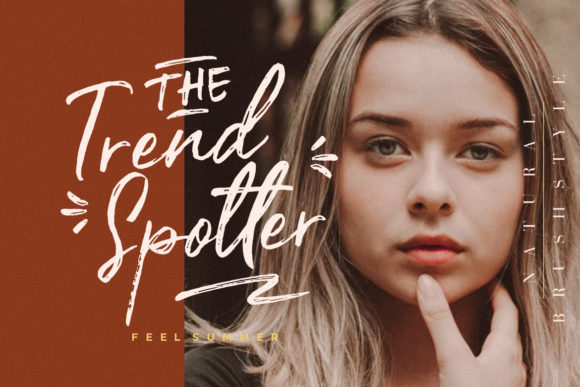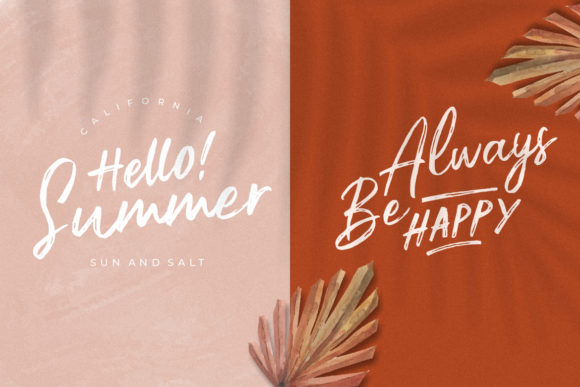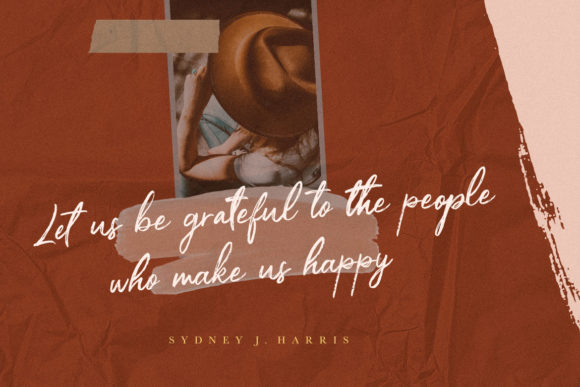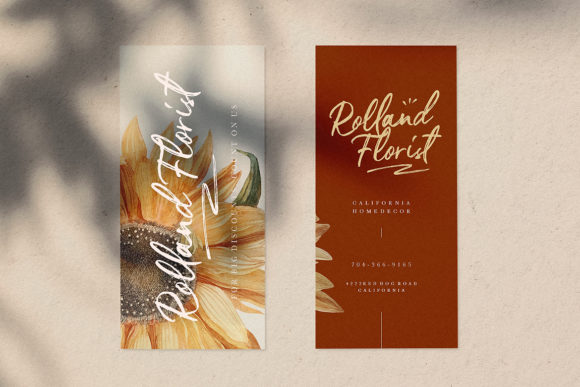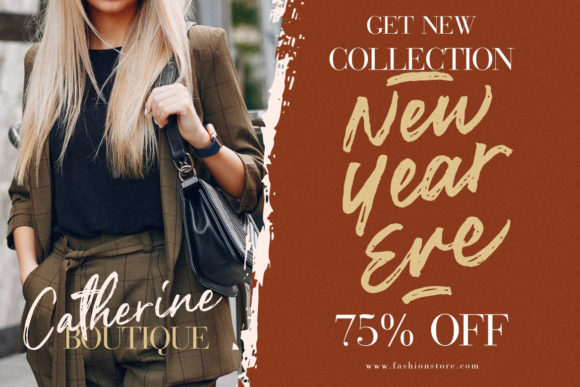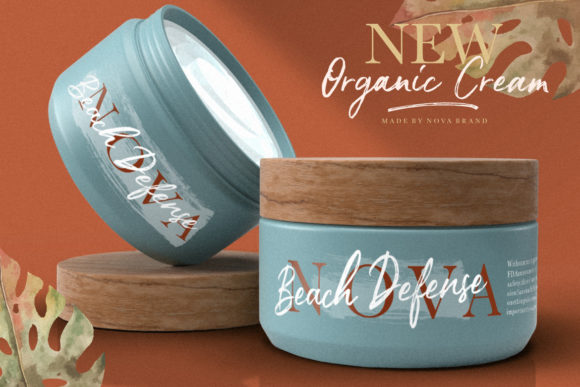
Introduction to Priscilla Font
Remember that moment when you stumbled upon the perfect font to elevate your creative project? For designers, it’s like finding a hidden treasure that sets their ideas apart from the rest. For us, that moment came when we discovered the Priscilla Font, a high-quality script font that’s as versatile as it is beautiful.
Whether you’re crafting a stunning letterhead, designing a title for a special occasion, or creating a set of stationery that reflects your personal style, the Priscilla Font is the perfect design resource to bring your vision to life. Its elegant curves and refined details make it a valuable asset for any creative project, from weddings to business promotions.
With its transparent background and PUA-encoded glyphs, accessing the Priscilla Font’s extensive library of swashes and accents is a breeze. And the best part? It’s available for free download, making it an invaluable addition to your design toolkit.
Key Features of Priscilla Font
- High-quality design resource ideal for creative projects, offering a unique and elegant aesthetic.
- Unique characteristics include its cursive script and ornate details, making it perfect for wedding invitations, quotes, and other creative projects.
Honest Review: Priscilla Font
As a designer, I’m always on the lookout for high-quality design resources that can elevate my creative projects. Recently, I stumbled upon the Priscilla Font, and I’m excited to share my honest review with you.
- ✨ Beautiful, elegant script style that’s perfect for adding a touch of sophistication to any design project.
- ✨ Includes a range of weights and styles to suit different design needs, from bold and playful to delicate and refined.
- ✨ Transparent background, which allows for easy layering and manipulation in design applications.
- ⚠️ Limited character set, which may not be suitable for projects requiring extensive text content.
- ⚠️ May require some tweaking to achieve the perfect level of legibility, particularly at smaller font sizes.
Overall, I’m impressed with the Priscilla Font’s high quality and versatility. While it may not be perfect for every project, it’s a great addition to any designer’s toolkit, and I’d definitely recommend it to anyone looking for a beautiful, elegant script font.
Priscilla Font Overview
Priscilla Font is a high-quality design resource ideal for creative projects requiring a sophisticated and elegant touch. This versatile font can be used for a variety of applications, from professional presentations to personal creative endeavors.
The Priscilla Font is perfect for:
- Professional presentations and reports
- Personal creative projects, such as photography or art portfolios
- Wedding invitations and event materials